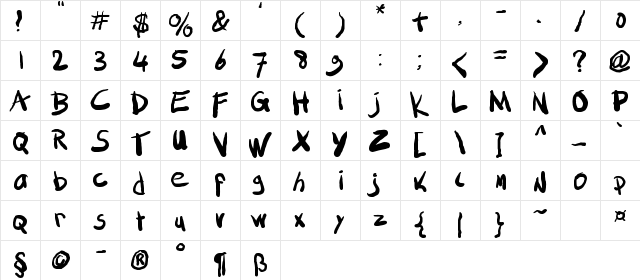
SML FAT MARKER Regular
| Designer | S.M. Lust |
Design Context for SML FAT MARKER Typeface
SML FAT MARKER is a composed and adaptable typeface that performs quietly and consistently across a wide range of design contexts.